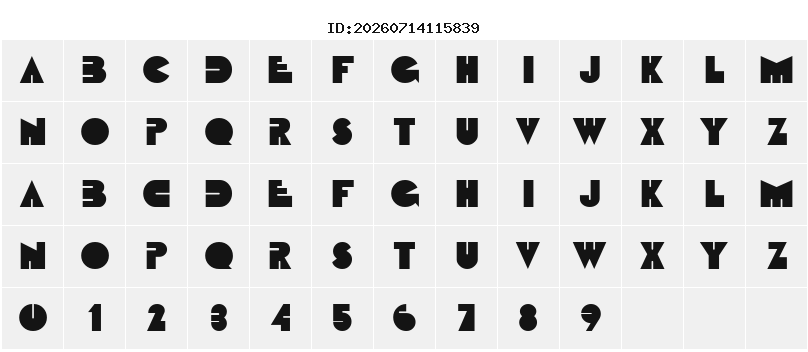
Heavy Weight Preview
• Font Name: Heavy Weight
• Full Font Name: Heavy Weight Normal
About Heavy Weight.ttf
Heavy Weight.ttf is a modern, elegant sans-serif font designed for ultimate readability and visual harmony. Perfect for branding, headlines, web design, and print materials.